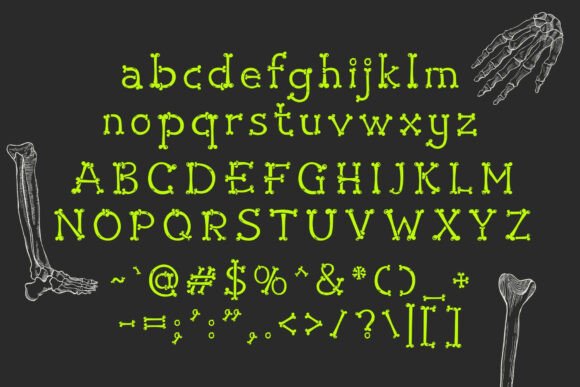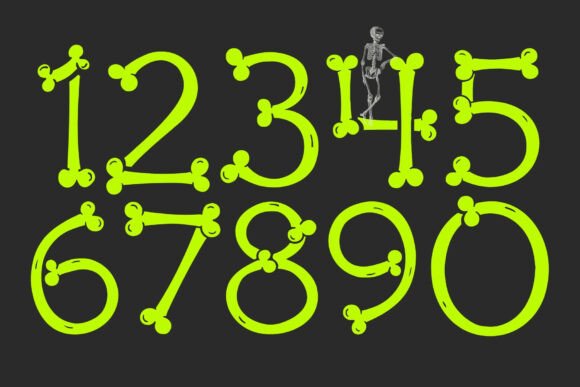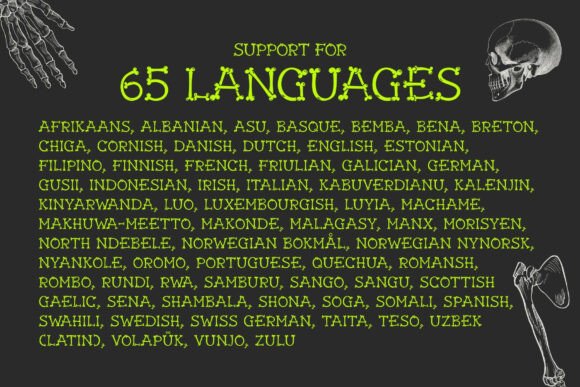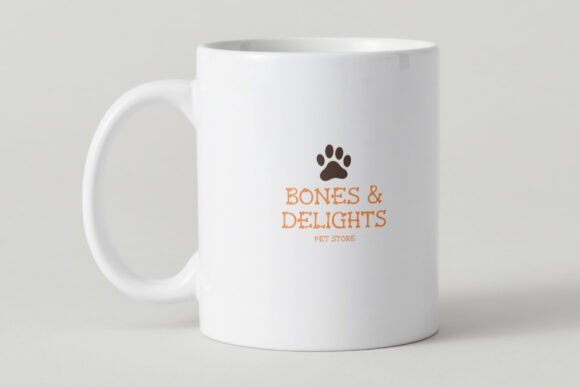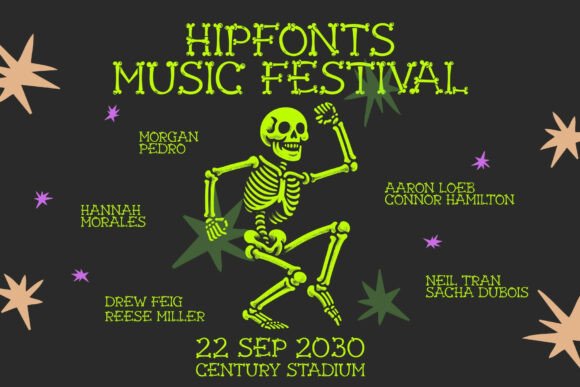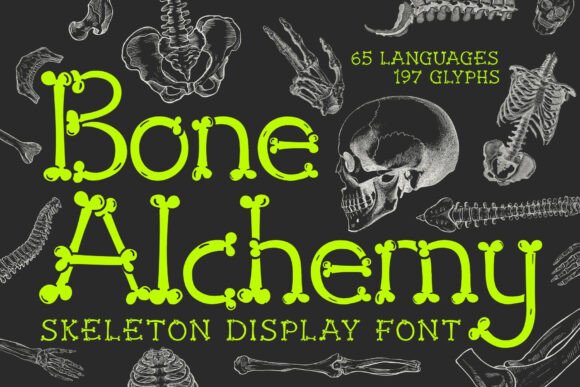
Bone Alchemy Font: A Spookily Charming Typeface for Designers and Crafters
Conjured from the shadows of forgotten rituals and the playful mischief of the macabre, the Bone Alchemy font is a skull-and-bone-inspired decorative display typeface that transforms skeletal forms into bold, eye-catching typography. This unique font is perfect for designers and crafters looking to add a touch of eerie charm and whimsical personality to their projects.
The Inspiration Behind Bone Alchemy
The Bone Alchemy font is built from chunky bone-like structures and carved with subtle organic imperfections, giving it a one-of-a-kind look that’s both spooky and fascinating. Each letter feels assembled — as if pieced together from enchanted remains — creating a dramatic and eye-catching effect that’s perfect for a variety of design applications.
Design Characteristics and Features
One of the standout features of the Bone Alchemy font is its bold, skeletal look. The chunky bone-like structures and subtle organic imperfections give the font a sense of texture and depth that’s hard to find in more traditional typefaces. The font’s skeletal design also makes it perfect for use in anatomical diagrams, posters, and other projects where a touch of macabre whimsy is desired.
Pairing Bone Alchemy with Other Fonts
To get the most out of the Bone Alchemy font, it’s best to pair it with clean, minimalist sans serifs. This allows the bony textures to truly pop and creates a striking contrast that’s sure to grab attention. The font’s bold, skeletal look also works well with script fonts and other decorative typefaces, making it a versatile addition to any designer’s toolkit.
Use Cases for Bone Alchemy
The Bone Alchemy font is perfect for a wide range of design applications, from spooky Halloween-themed projects to more dramatic and artistic endeavors. Here are a few ideas to get you started:
- Eye-catching posters and flyers for haunted houses, Halloween parties, and other spooky events
- Anatomical diagrams and illustrations that need a touch of artistic flair
- Seasonal and character-driven designs, such as Christmas or Easter-themed projects
- Dark and dramatic designs, such as movie posters or book covers
- Whimsical and playful designs, such as children’s book illustrations or greeting cards
The Benefits of Using Bone Alchemy
The Bone Alchemy font offers a number of benefits for designers and crafters, including:
- A unique and eye-catching design that’s sure to grab attention
- A versatile font that works well in a variety of design applications
- A bold, skeletal look that’s perfect for creating dramatic and artistic designs
- A whimsical and playful personality that’s perfect for seasonal and character-driven designs
In conclusion, the Bone Alchemy font is a spookily charming typeface that’s perfect for designers and crafters looking to add a touch of eerie charm and whimsical personality to their projects. With its bold, skeletal look and versatile design, this font is sure to become a go-to choice for a wide range of design applications. Whether you’re creating spooky Halloween-themed projects or more dramatic and artistic endeavors, the Bone Alchemy font is a great choice.